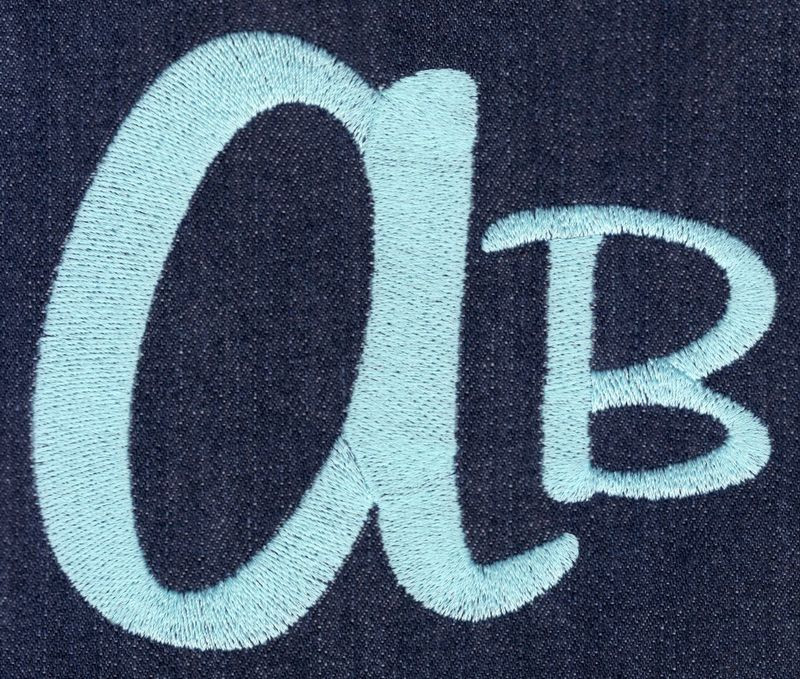
323 Tabitha SatinFill Font
Tabitha SatinFill Font comes in 2", 3", 4" & 5". Height is based on the capital "A". All sizes are finished in SatinFill stitching and include uppercase letters, lowercase letters, numbers and four punctuations. A few characters in the 3" and most characters in the 4" and 5" sets exceed standard 4x4 hoop limitations.